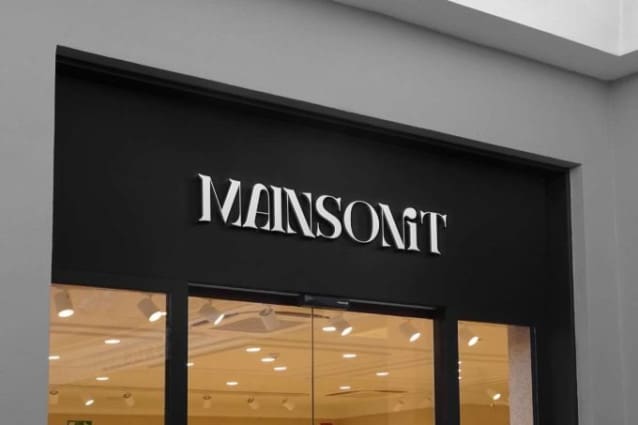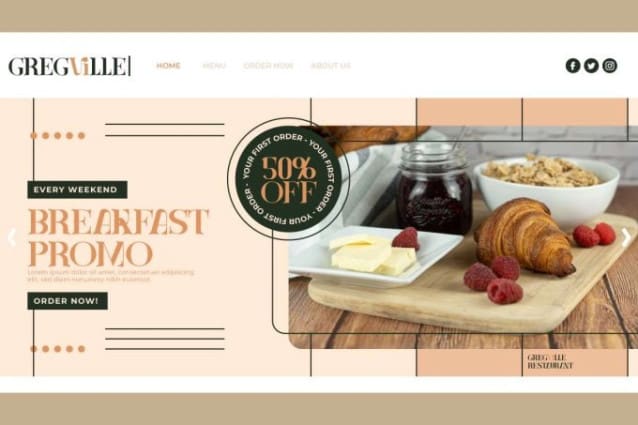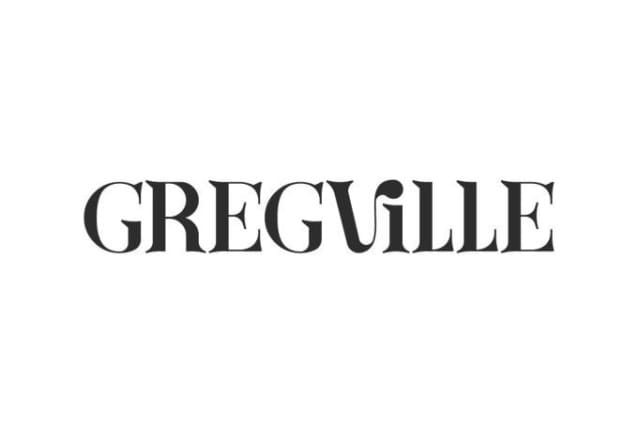
Gregville Font
Gregville Font is a epic serif font with a timeless classic feel. It will add class to your business, such as architect, café, clothing brand, construction, craftsman, fashion designer, florist, furniture, menswear, movie, pastry, photography, printing, publishing, restaurant, retail, writer, and many more.
Gregville Font includes a complete set of Basic Characters Uppercase and Lowercase that are ALL CAPS, Number, Punctuation, Symbol, and Ligature. Its retro look can elevate your design in a different way, such as billboard, blogs, brochure, cover magazine, headline, invitation, label, poster, packaging design, screen print, signage, stationery, sticker, title, website, etc.